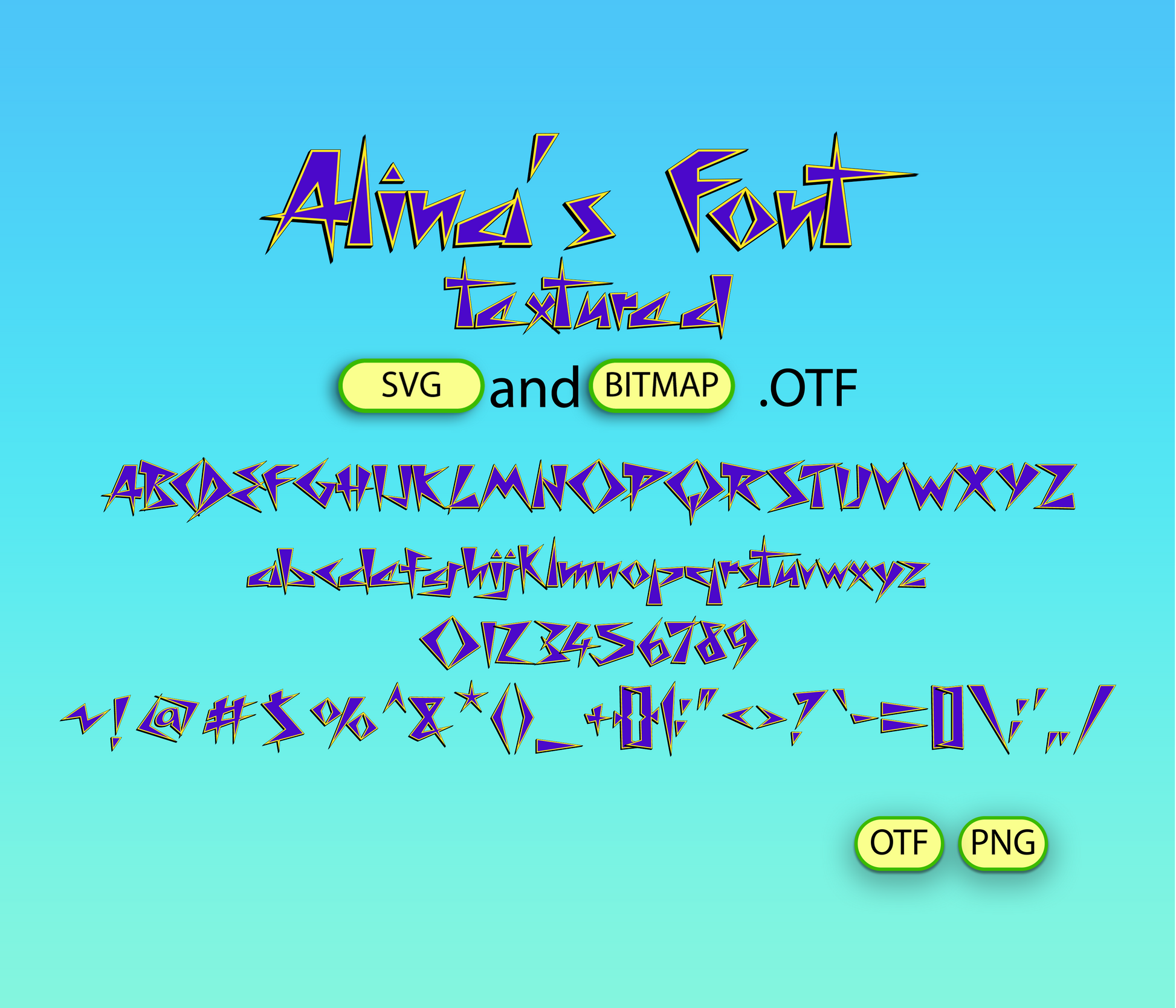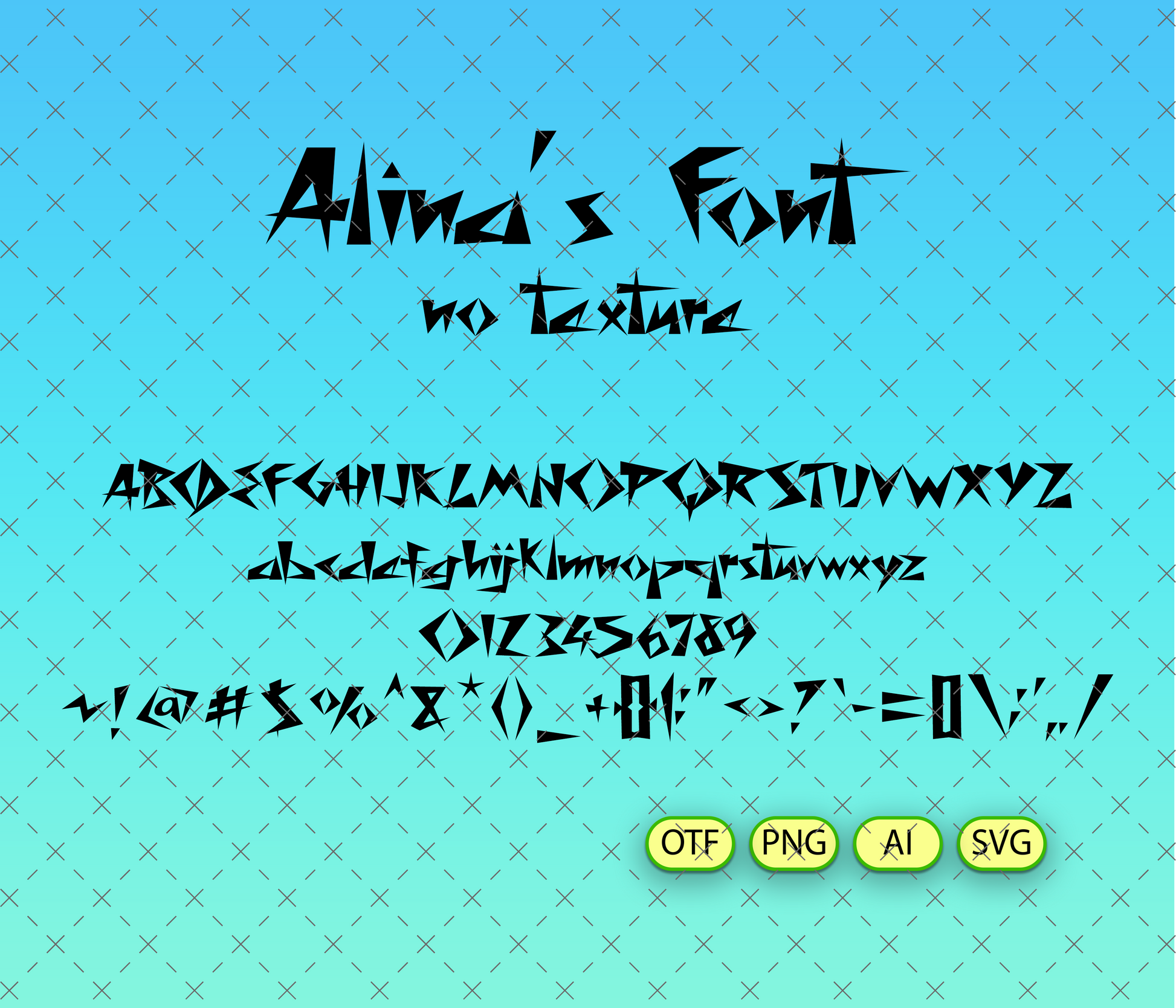
Ancient Script Cosmic Font Textured
Step into the mystical world of primordial symbols with our Ancient Script Cosmic Font Textured, capturing the essence of celestial civilizations and futuristic archaeology. Perfect for sci-fi enthusiasts, themed event planners, content creators, and creative professionals, this font brings the bold, enigmatic spirit of interstellar ancient culture stories to your projects. Create eye-catching invitations, merchandise, or digital content with the dramatic energy of space-age historical narratives.
Bold Typography for Sci-Fi Design & Futuristic Projects
Our Ancient Script Cosmic Font Textured features dramatic, stylized letterforms with weathered cosmic textures reflecting the world of extraterrestrial civilizations and galactic archaeological settings.
- Event Promotions: Create eye-catching invitations, posters, and banners for sci-fi parties, fantasy conventions, and gatherings that capture the spirit of cosmic exploration entertainment
- Merchandise Design: Perfect for t-shirts, posters, stickers, and accessories that showcase the bold aesthetic of ancient space culture themes
- Digital Media: Enhance websites, blogs, and social media with enigmatic headers and graphics that express the mystery of interstellar civilizations
- Creative Content: Add authentic flair to fan art, character designs, and creative projects inspired by celestial archaeology tales
- Personal Projects: Bring cosmic energy to scrapbooking, DIY crafts, and home decor inspired by the world of futuristic ancient symbols
Our font pays tribute to the world of interstellar civilization stories and futuristic archaeology, empowering your projects with its bold and enigmatic spirit. Whether crafting fan materials, designing themed products, or adding a cosmic touch to personal projects, this font communicates the vibrant essence of space-age historical entertainment. Ready to inject celestial mystery into your creations? This font is your key to eye-catching, impactful design.